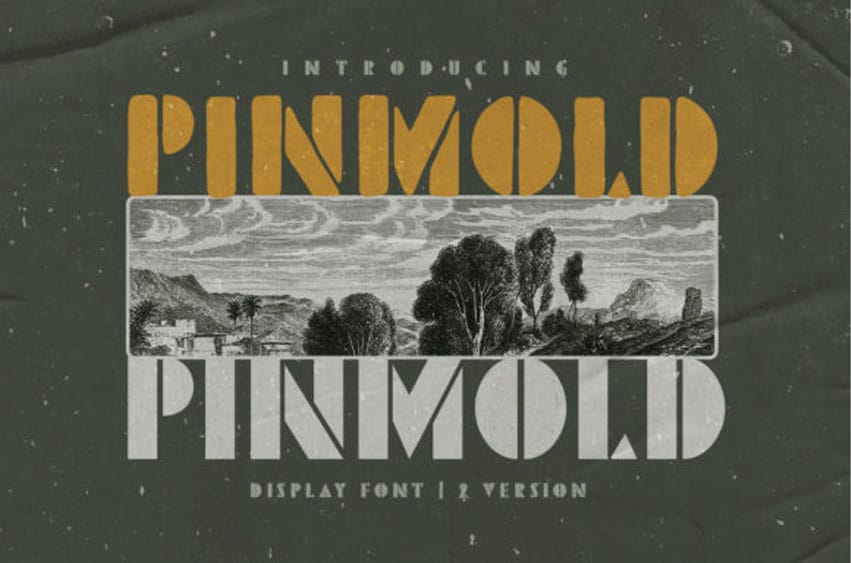
Pinmold Font is a cool, bold and thick lettered display font.
Add this rough lettered, vintage styled font to your creations and instantly elevate them.